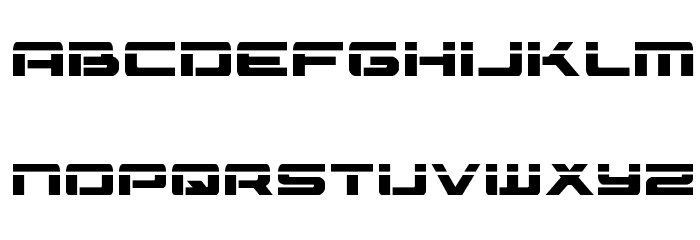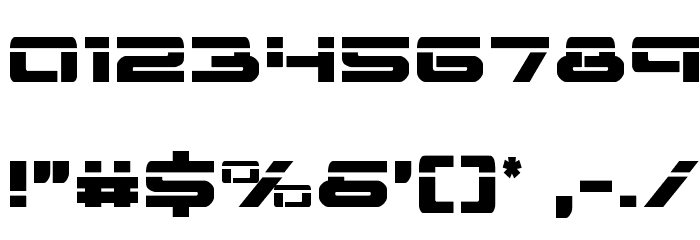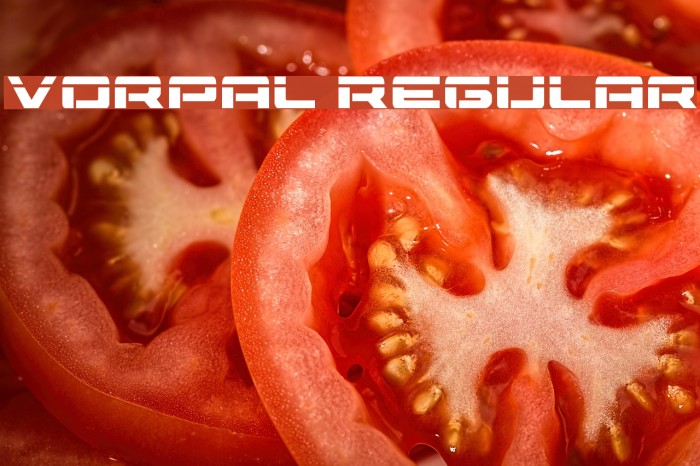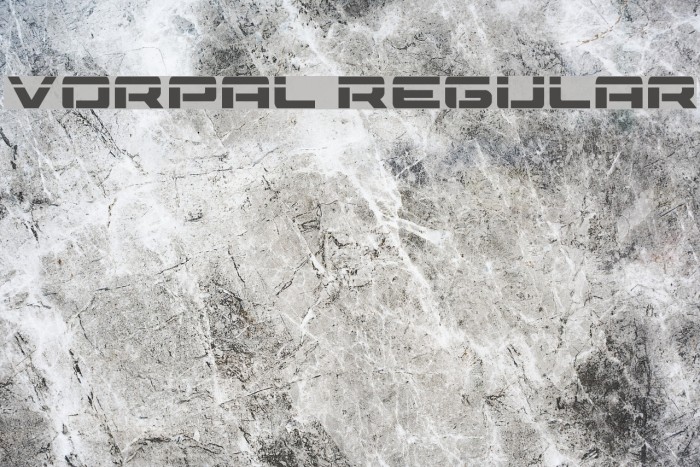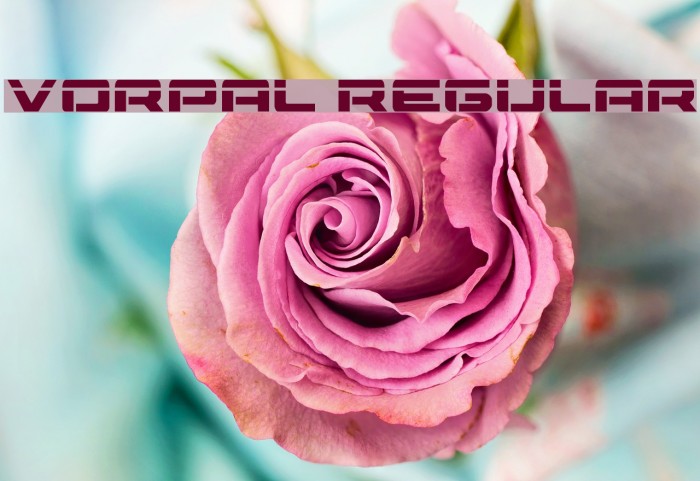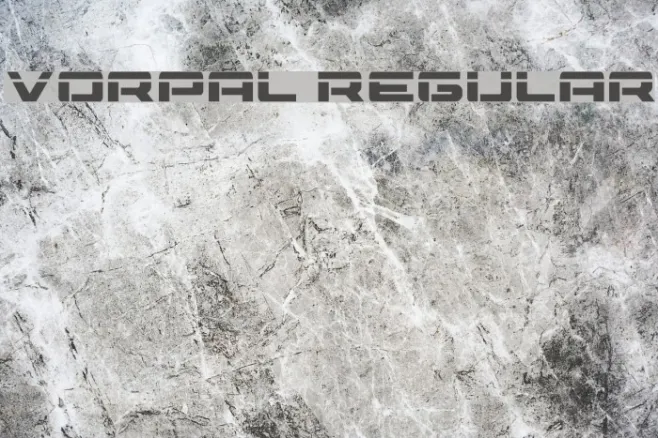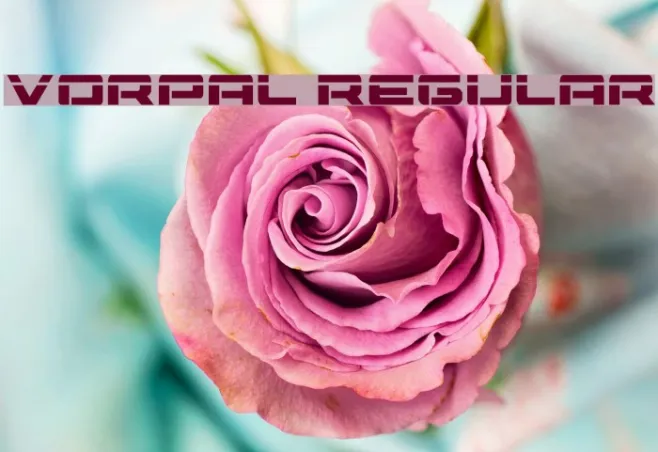
Vorpal Regular Font
This font features a futuristic and geometric design, characterized by its bold and angular letterforms. The characters exhibit a strong presence with their thick strokes and sharp edges, creating a sense of modernity and innovation. The uppercase and lowercase letters maintain a consistent style, with a unique approach to the curves and angles that give the font a distinctive look. The numerals and special characters are designed to match the overall aesthetic, ensuring a cohesive appearance across all text. This font is ideal for projects that require a modern and edgy feel, such as technology branding, sci-fi themed designs, or any creative work that aims to stand out.
A bold, futuristic font with geometric and angular letterforms.
- Proposed Projects: Ideal for technology branding, sci-fi designs, and creative projects seeking a modern edge.